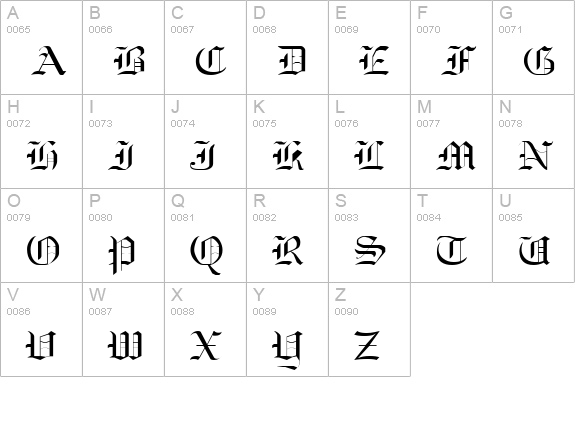
The OldEnglish font exudes an aura of medieval charm and historical elegance, making it an ideal choice for projects that require a touch of antiquity. With its intricate and ornate letterforms reminiscent of ancient manuscripts, this font adds a sense of sophistication and timelessness to any design. The OldEnglish font is a versatile choice for various creative endeavors, from invitations to branding to vintage-themed projects. Best of all, the OldEnglish font is available for free download at FontsMarket.com. This means that you can easily access and use this captivating font without any cost, making it a valuable addition to your font collection. Whether you are a designer seeking to add a classic touch to your work or an enthusiast of historical typography, the OldEnglish font is sure to delight and inspire. Download it today and infuse your creations with the beauty and charm of the past.